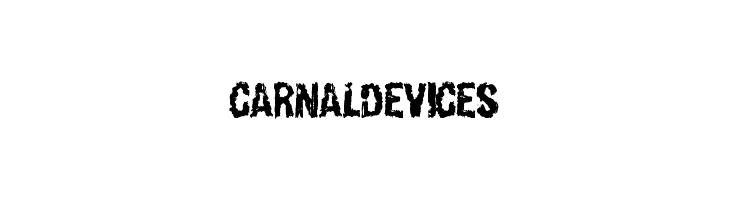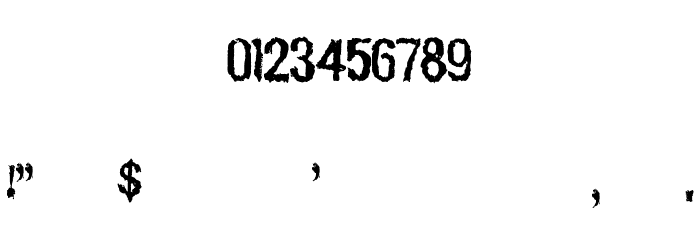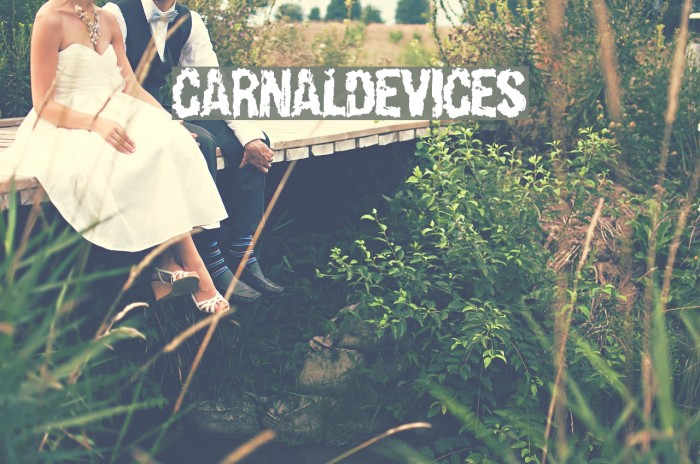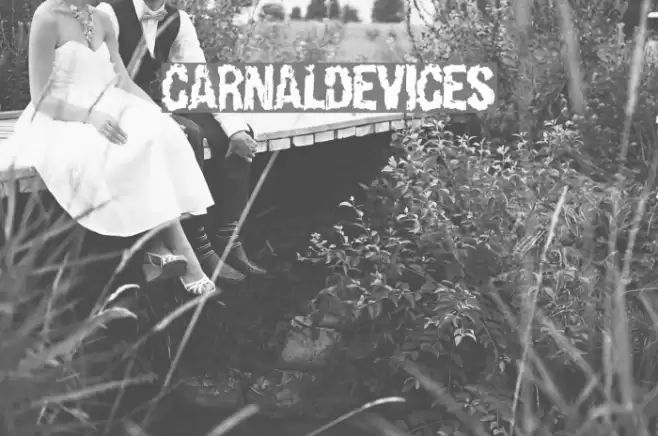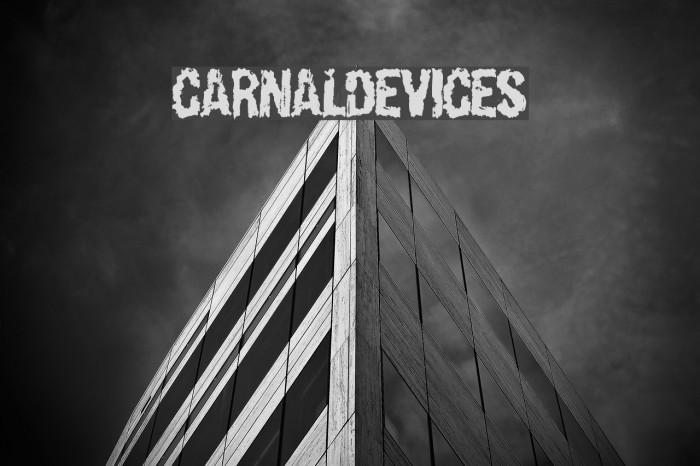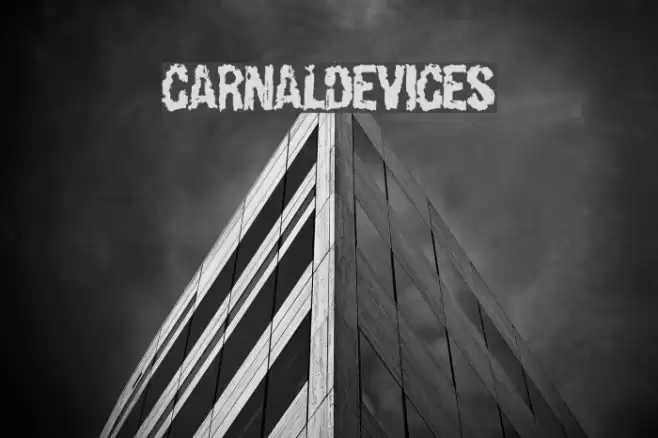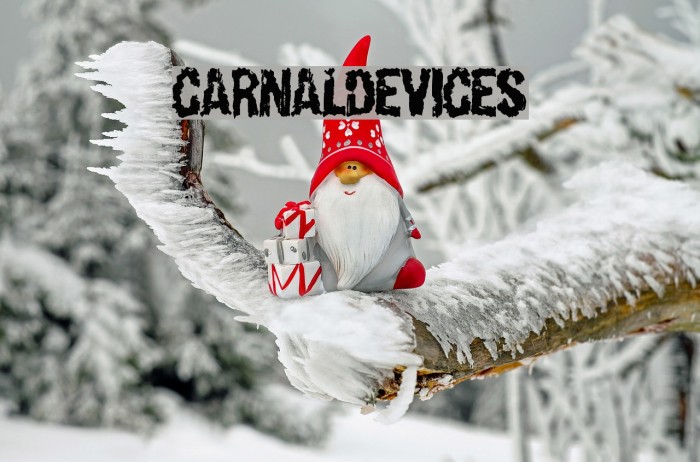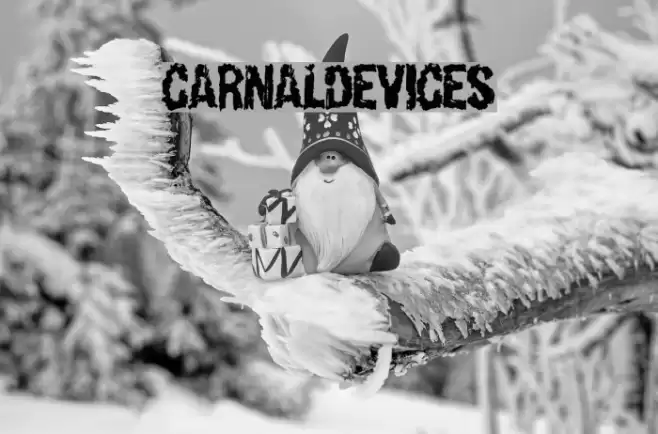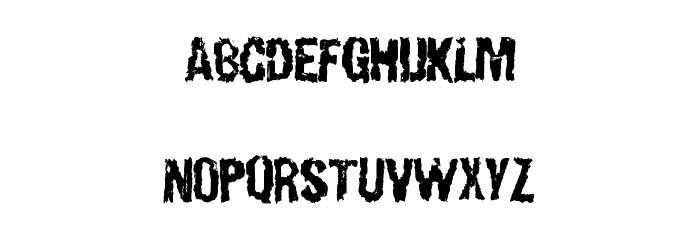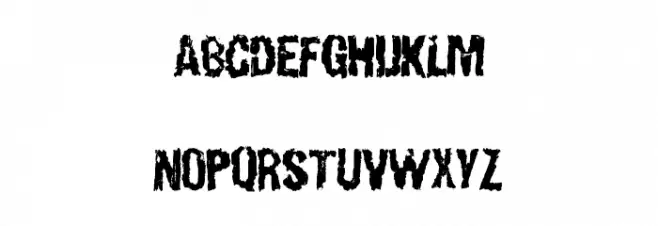
CarnalDevices Font
CarnalDevices Description
This font features a rugged, distressed appearance with uneven edges and a bold presence. The characters appear as if they have been eroded or weathered, giving them a unique, textured look. The uppercase and lowercase letters maintain a consistent style, with the numbers and special characters following suit. The overall design is bold and impactful, making it suitable for projects that require a strong visual statement. The font's rough texture adds a layer of depth and character, making it ideal for creative and artistic applications.
| Proposed Projects | Ideal for posters, album covers, branding for edgy products, and artistic projects that require a bold statement. |